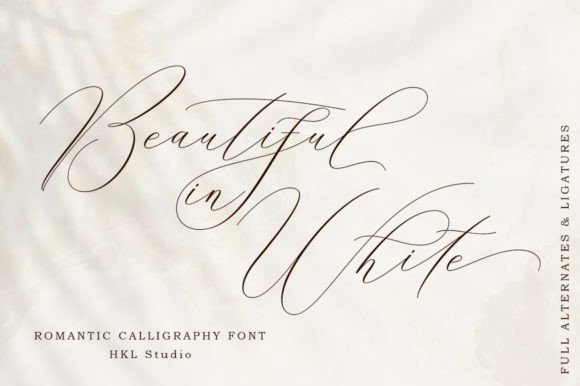
Beautiful in White Font: Elevate Your Designs with Elegance
The “Beautiful in White Font” is a stunning modern script font that is sure to elevate your designs with its sleek and italic style. Created with meticulous attention to detail, this font exudes an air of elegance and sophistication, making it perfect for a wide range of design projects.
Aesthetic Appeal
This font’s design is characterized by its clean lines, flowing curves, and precise craftsmanship. The result is a font that looks both modern and timeless, with a versatility that allows it to be used in various contexts. The “Beautiful in White Font” is ideal for designers looking to add a touch of refinement and luxury to their work.
Key Features
- Sleek and Italic Style: The font’s sleek and italic design gives it a dynamic and elegant appearance.
- Elegant Impression: The meticulous creation process ensures that the font conveys a sense of sophistication and refinement.
- Multilingual Support: The font includes multilingual support, making it suitable for global design projects.
- Full Set of Characters: It contains a full set of lowercase and uppercase letters, punctuation, numbers, and web fonts.
- Ligatures and Alternative Styles: The font includes several ligatures and alternative styles for the Stylistic Set, compatible with OpenType software.
Versatility in Design Projects
The “Beautiful in White Font” is incredibly versatile, making it suitable for a wide array of design projects. Its elegant and modern appearance allows it to be used in:
Project Ideas
- Logos and Branding: Create memorable logos and branding materials that stand out with a sophisticated look.
- Product Packaging: Elevate product packaging designs with a touch of elegance and refinement.
- Advertising Materials: Use the font in posters, quotes, and shopping bags to create visually appealing advertising materials.
- Merchandise: Design eye-catching t-shirts, mugs, and other merchandise that will leave a lasting impression.
- Stationery: Enhance business cards, invitation cards, congratulations cards, and other stationery with a classy look.
- Book Covers: Create stunning book covers that capture the essence of the book’s content with an elegant font.
Ease of Use
Typography and Readability
The “Beautiful in White Font” not only excels in aesthetic appeal but also in typography and readability. The clear and flowing design of the characters ensures that text remains legible, even at smaller sizes. This makes it an excellent choice for body text, as well as for headlines and titles.
OpenType Features
For designers with access to OpenType features, the “Beautiful in White Font” offers additional typographic possibilities. These include:
- Ligatures: Replace standard character combinations with ligatures for a more polished look.
- Stylistic Sets: Access alternative styles and character forms to add variety and creativity to your designs.
These features allow for a high degree of customization, enabling designers to tailor the font to the specific needs of their projects.
The “Beautiful in White Font” is a versatile and elegant script font that can elevate a wide range of design projects. Its sleek and italic style, combined with its comprehensive feature set, makes it an excellent choice for designers looking to add a touch of sophistication and refinement to their work. Whether you’re creating logos, product packaging, advertising materials, or stationery, this font is sure to deliver a lasting impression.
Final Tips
- Experiment with Ligatures: Take advantage of the font’s ligatures to add a unique touch to your designs.
- Play with Sizes: The font’s clarity and readability make it suitable for use at various sizes, from large headlines to smaller body text.
- Pair Creatively: Don’t be afraid to experiment with different font pairings to find the perfect combination for your project.
With the “Beautiful in White Font,” the possibilities are endless. Embrace its elegance and versatility to create stunning designs that leave a lasting impact.